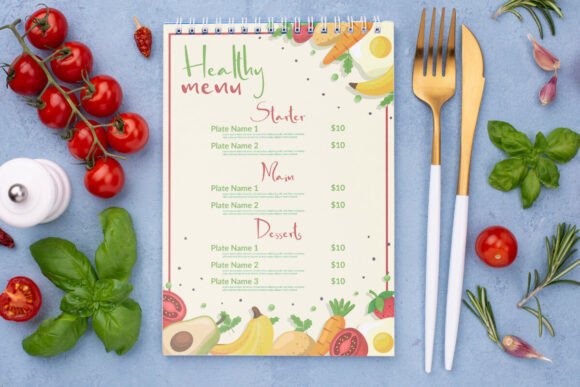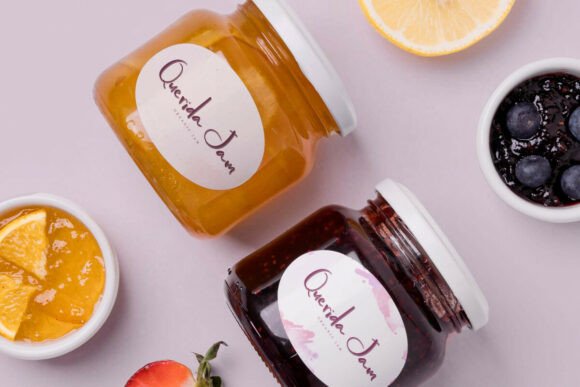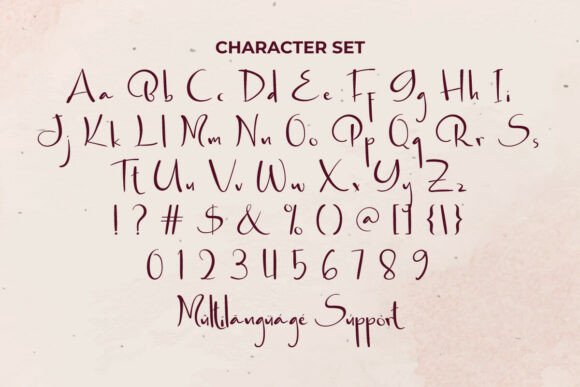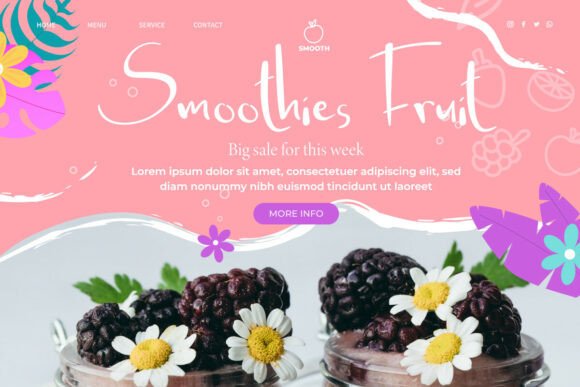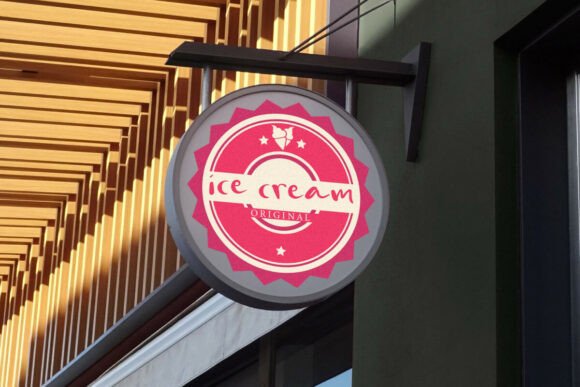
As you sit at your desk, surrounded by scribbled sketches and abandoned ideas, there’s that one moment when the perfect font suddenly pops into your head. It’s the one that makes your design come alive, adds a dash of personality, and leaves a lasting impression. For many designers, this moment is often triggered by the discovery of a new, captivating font. For those who’ve been searching for that elusive ‘wow factor’, the Berry Jam Font is sure to spark inspiration.
With its delicate, handwritten script and organic simplicity, the Berry Jam Font is a versatile display option that’s perfect for a range of design projects. From feminine branding and product labels to elegant wedding calligraphy and beautiful greeting cards, this charming font is sure to bring a touch of warmth and personality to any design. Whether you’re a seasoned designer or just starting out, the Berry Jam Font is a valuable addition to your toolkit, offering effortless access to a world of creative possibilities.
Berry Jam Font Key Features
- Font Style: A playful, handwritten font with a unique charm, ideal for creative and artistic projects.
- Unique Characteristics: Berry Jam Font features a distinctive, hand-drawn style with subtle imperfections, giving it a genuine, artisanal feel that sets it apart from other fonts.
Berry Jam Font Review
I was excited to dive into the Berry Jam Font, and I’m happy to share my honest thoughts on its strengths and weaknesses. ✨ One of the things that really shines about this font is its unique personality. The quirky, hand-drawn feel is instantly charming, and it would be perfect for brands looking to add a touch of whimsy to their designs.
Another great aspect of Berry Jam is its versatility. It comes in a wide range of weights and styles, making it easy to use in various design contexts, from logos to body text. The font also includes a variety of ligatures and swashes, which add an extra layer of visual interest and make it feel more premium.
- ⚠️ Inconsistent spacing: While the font is generally well-spaced, I did notice some inconsistencies, particularly in the uppercase letters.
- ⚠️ Limited language support: Berry Jam is primarily designed for English language use, so it may not be the best choice for multilingual projects.
Overall, I’m impressed with the Berry Jam Font, but I do think it has some areas for improvement. With a bit more attention to detail and expansion of language support, this font has the potential to be a real showstopper.
Tips for Getting the Most Out of Berry Jam Font
For optimal results, use Berry Jam Font in contexts where its playful, whimsical feel will be most effective, such as in children’s materials, food branding, or event invitations.
Berry Jam Font is ideal for use in:
- Children’s book covers and interior illustrations
- Food branding and packaging
- Event invitations and promotional materials
- Web design and e-commerce